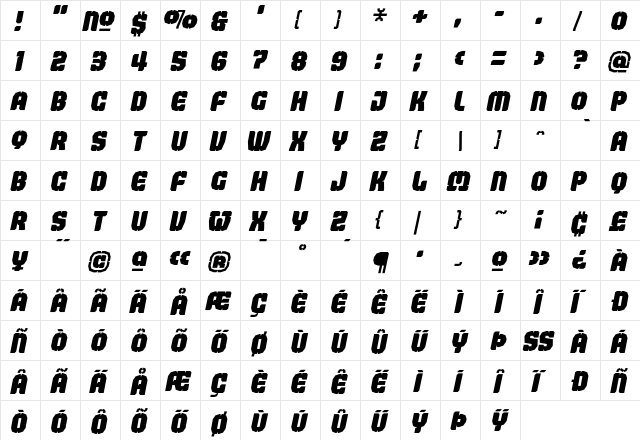
Judgement BlackStencilItalic
Design Context for Judgement Typeface
Judgement borrows the utilitarian aesthetic of stencil lettering, with its characteristic cutaways and no-frills construction lending an industrial edge. Its italic angle brings a sense of urgency and motion to the letterforms.
Ideal for industrial branding, streetwear, military-adjacent aesthetics, and urban signage projects.
Pro Tip: Pair Judgement with raw, utilitarian design elements — exposed concrete textures, flat colour, and minimal ornamentation suit it well.